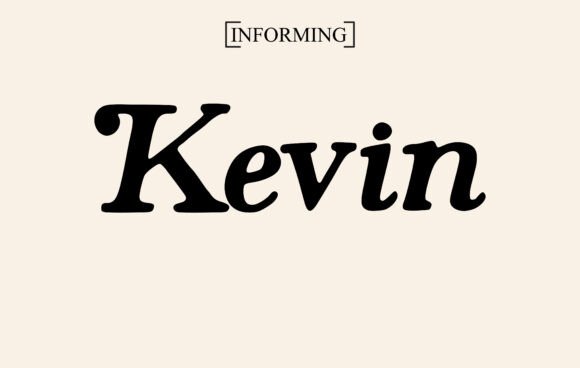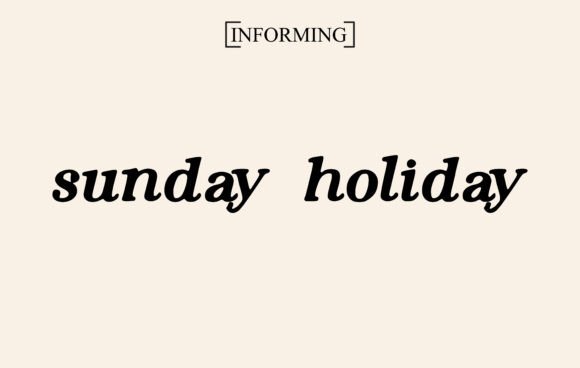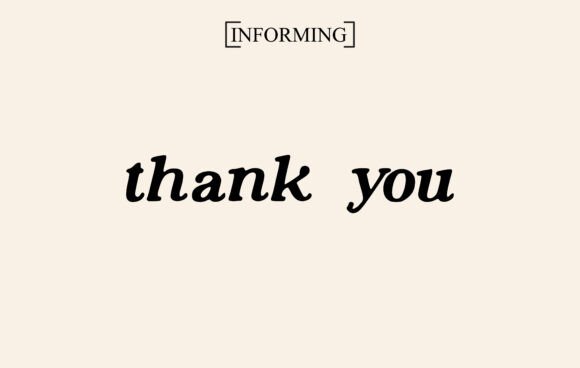
Kevin Font: A Bold Display Font for Eye-Catching Headlines
About the Kevin Font
Explore the possibilities with Kevin Font, a font that offers both beauty and functionality. Kevin is designed to be a true favorite; this font has the potential to take your creative ideas to the highest level
Kevin’s strong, confident strokes make it ideal for headlines, logos, and short impactful statements in branding materials and posters. Its legibility shines in larger sizes, but its weight might prove overwhelming for extended body text or UI elements. Avoid using it for long paragraphs or small-sized applications.
The font’s personality is bold and modern. It projects authority and sophistication. Consequently, it pairs well with clean sans-serif fonts like Open Sans for body copy or a more delicate script like Lora for a touch of elegance in secondary text. For a bolder aesthetic, consider pairing it with a geometric sans-serif such as Montserrat.
This font is particularly well-suited for brands aiming for a contemporary and authoritative image—think luxury goods, technology companies, or architectural firms. Its versatility allows it to work across print and digital media, provided it’s used strategically.